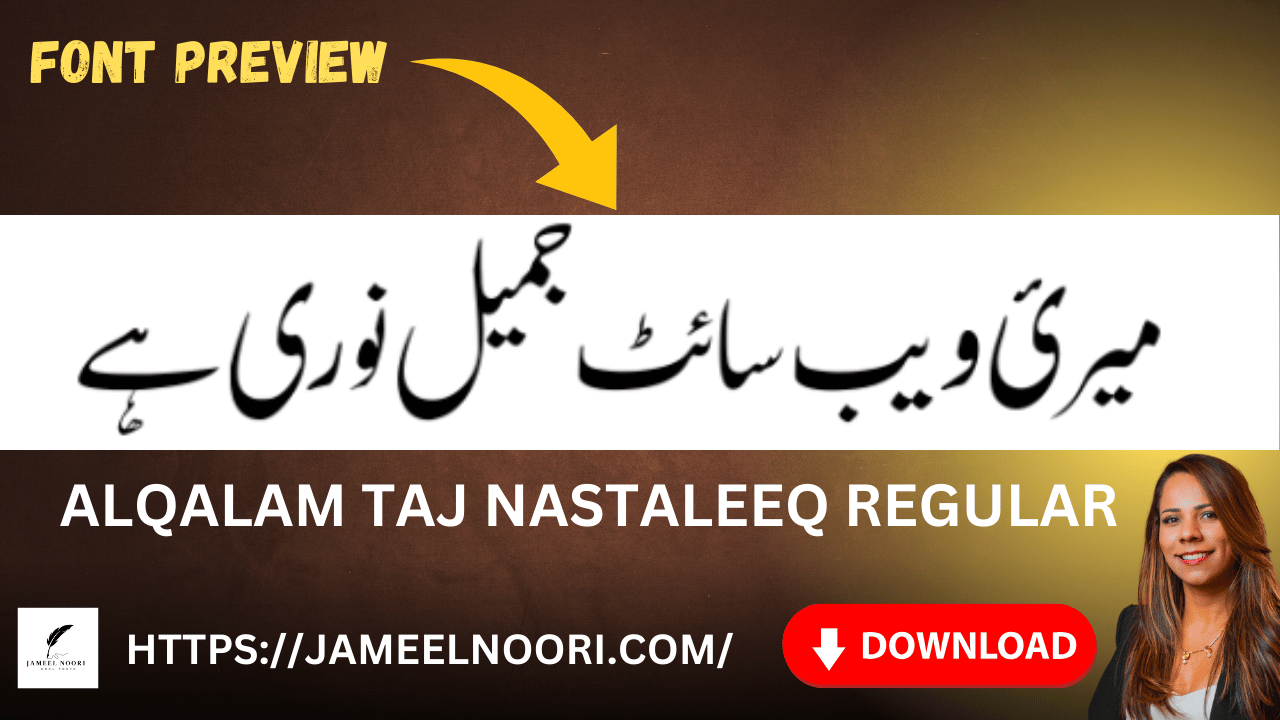
The Urdu language is renowned worldwide for its beauty, poetic style, and delicate calligraphy… To write and read Urdu correctly, having an appropriate font is essential… AlQalam Taj Nastaleeq Regular is a well-known and-d excellent font for the Urdu language, preserving the tradition of Nastaleeq calligraphy… In this article,, we will explore why Urdu fonts are important,, where they are used, and how to download the AlQalam Taj Nastaleeq Regular font…
Importance of Urdu Fonts
The script of the Urdu language is Nastaleeq, a beautiful form of Persian calligraphy… In Nastaleeq calligraphy, letters are joined in a specific manner when writing Urdu, which is not possible with ordinary fonts… Urdu fonts like AlQalam Taj Nastaleeq Regular solve this problem and present Urdu in its true elegance…
- Language Integrity: Without Urdu fonts, letters do not join correctly, affecting the quality of the language…
- Reader Convenience: Using the correct fonts makes the text easier to read…
- Cultural Significance: Urdu fonts preserve the cultural and historical importance of the Urdu language…
Where are Urdu Fonts Used?
Urdu fonts are used in various places:
- Educational Institutions: For preparing Urdu textbooks, exam papers, and other materials in schools, colleges, and universities…
- Media: For publishing Urdu content in newspapers, magazines, and online platforms…
- Literature: For writing poetry, short stories, and novels…
- Official Documents: For preparing Urdu documents in government institutions…
- Personal Use: For writing letters, speeches, and other personal writings…
AlQalam Taj Nastaleeq Regular: An Excellent Urdu Font
AlQalam Taj Nastaleeq Regular is a TrueType Font thatt maintains the tradition of Nastaleeq calligraphy… This font is suitable not only for the Urdu language but also for Persian, Pashto, Kashmiri, and other languages… Some features of this font are as follows:
Historical Significance of Nastaleeq Calligraphy
The tradition of Nastaleeq calligraphy began in Persian culture and later found its place in the Urdu language… This calligraphy is very, important for languages spoken in Iran, Afghanistan, Pakistan, India, and China’s Xinjiang province, such as Persian, Urdu, Kashmiri, Pashto, Balochi, and Uyghur… AlQalam Taj Nastaleeq Regular continue this calligraphic tradition and is an excellent choice for the Urdu language…
Summary